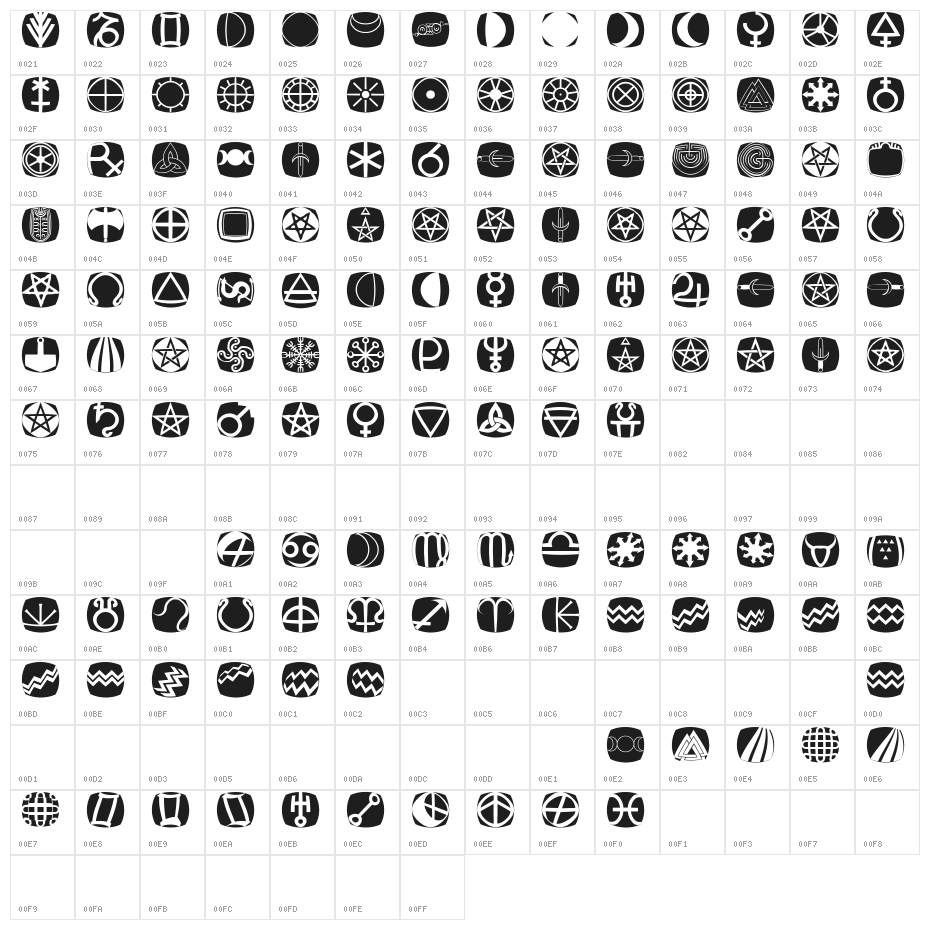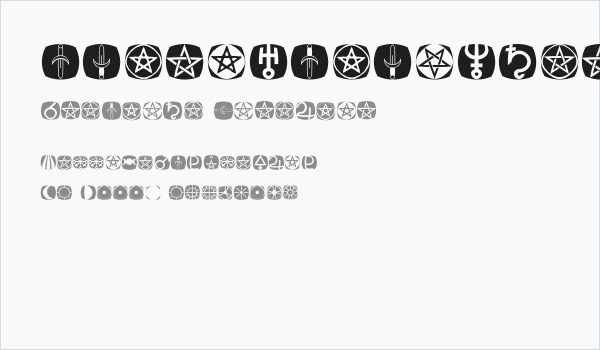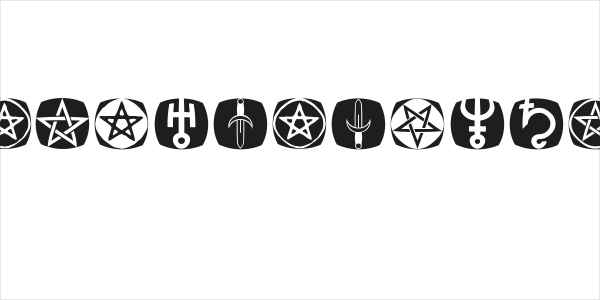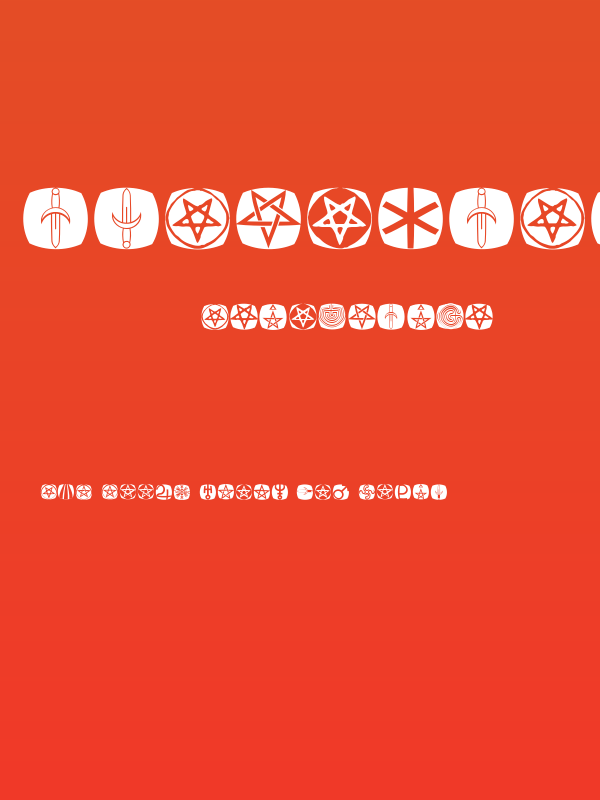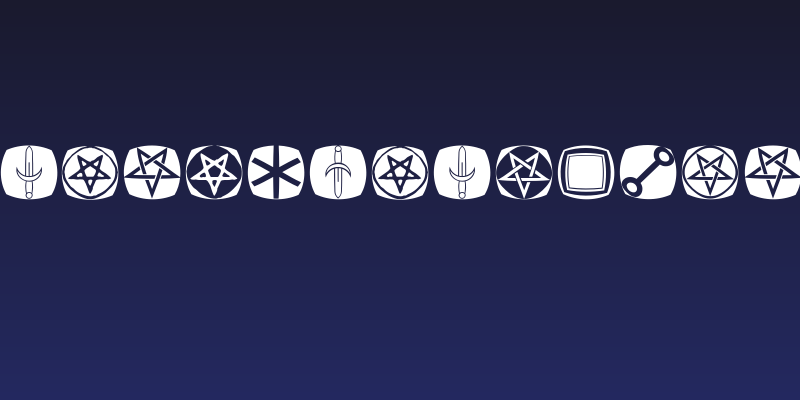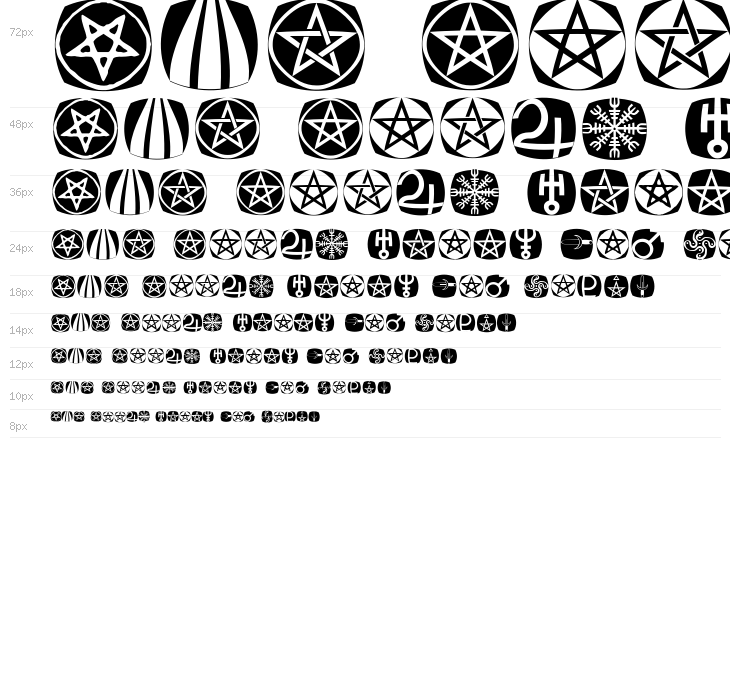
AstrobatsInvers Font
AstrobatsInvers Description
This collection of symbols features a variety of intricate and abstract designs, each enclosed within a rounded square. The symbols range from geometric shapes and patterns to star-like figures and abstract forms. The designs are bold and striking, with a high contrast between the black background and the white symbols, creating a visually impactful appearance. Each symbol is unique, offering a diverse array of styles that could be used for various creative projects. The overall aesthetic is modern and somewhat futuristic, with a hint of mysticism due to the star and planetary motifs.
| Overall Style | Modern, Futuristic |
| Use Case | Logos, Decorative elements, Branding |
| Proposed Projects | Ideal for use in graphic design projects, branding, logos, or as decorative elements in digital media. |